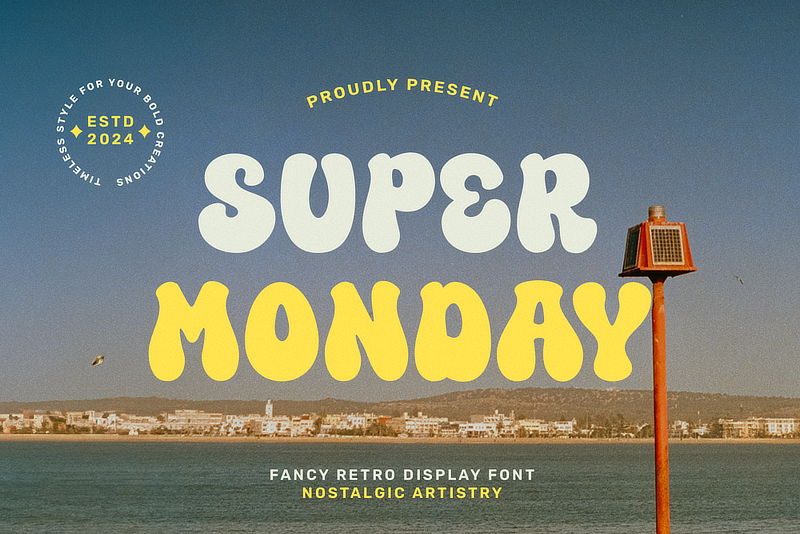
Preview and download Super Monday Font. Created by fsuarez913 in Fancy Groovy styles with Free for personal use license.
This font is for PERSONAL USE ONLY!. If you want to use this font for commercial purposes, you will need to purchase a commercial license. You can purchase a commercial license at https://allsuperfont.com/product/super-monday/ Channel the groovy vibes with Super Monday! This playful, hand-lettered font injects a shot of sunshine into your designs. Its simple, bubbly characters and casual style evoke a sense of retro charm, perfect for adding a touch of nostalgia to quotes, logos, packaging, and more. |